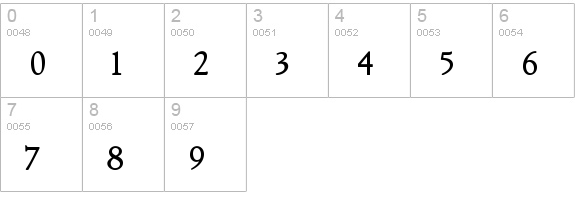
CloisterOldstyleRoman Font Details
CloisterOldstyleRoman font is a classic and elegant typeface that exudes a sense of timeless sophistication. Its graceful serifs and clean lines make it a perfect choice for projects requiring a touch of traditional charm. Whether used in print or digital media, this font carries an air of refinement and professionalism. What sets CloisterOldstyleRoman font apart is not only its aesthetic appeal but also its versatility. It can be used for a wide range of design purposes, from invitations and signage to branding and editorial layouts. The font's legibility and readability make it a reliable option for conveying information effectively and stylishly. In addition to its aesthetic and functional qualities, CloisterOldstyleRoman font is also free to download at FontsMarket.com. This means that you can easily access this high-quality typeface without any cost, making it a valuable resource for designers, students, and anyone in need of a sophisticated font for their projects. Don't miss out on the opportunity to enhance your designs with the timeless beauty of CloisterOldstyleRoman font.